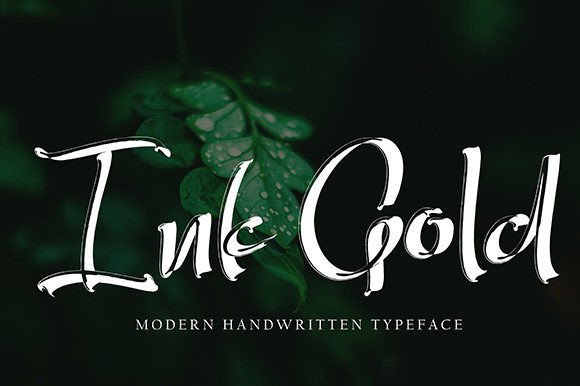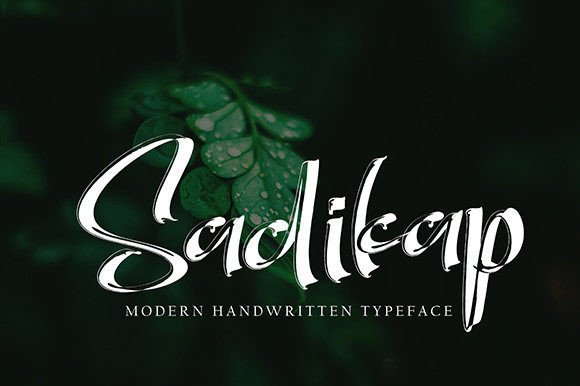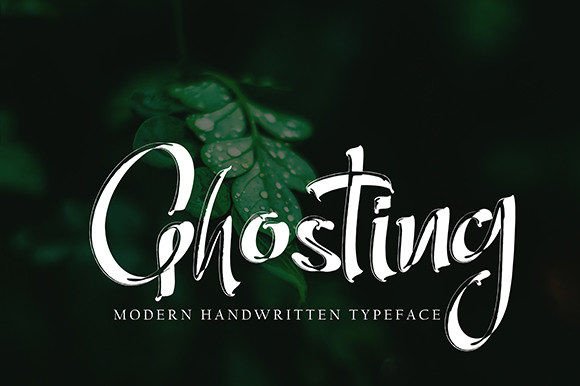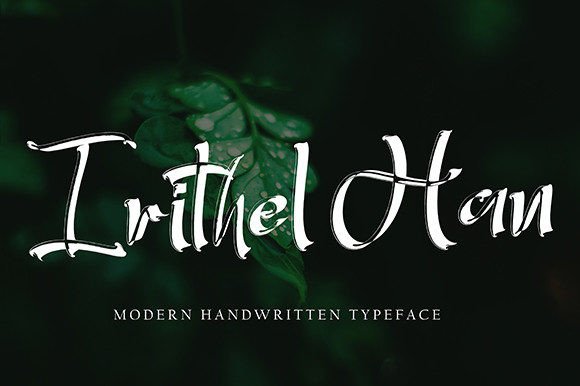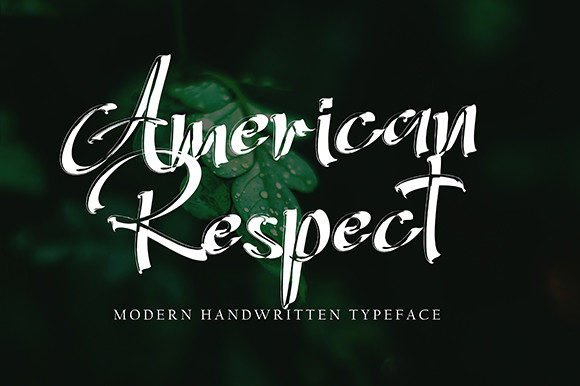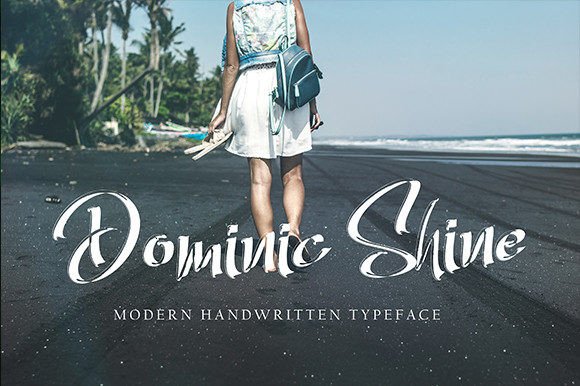
Aberto Gokil Font: The Fresh and Versatile Handwritten Font for Your Creative Projects
Are you a designer or crafter looking for a unique and versatile font to elevate your creative projects? Look no further than Aberto Gokil, a fresh and new handwritten font that’s perfect for a wide range of applications. In this article, we’ll explore the features and benefits of Aberto Gokil, and show you how to make the most of this exciting new font.
What is Aberto Gokil?
Aberto Gokil is a modern handwritten font that’s designed to bring a touch of personality and whimsy to your designs. With its flowing lines and natural feel, this font is perfect for creating eye-catching quotes, logos, blog headers, posters, branding, letters, invitations, stationery, and more.
Key Features of Aberto Gokil
- Handwritten style: Aberto Gokil has a beautiful, handwritten style that’s perfect for creating unique and personalized designs.
- Fresh and modern: This font is brand new, and its fresh and modern style ensures that your designs will stand out from the crowd.
- Versatile: Aberto Gokil is incredibly versatile, and can be used for a wide range of projects, from quotes and logos to blog headers and posters.
- Easy to read: Despite its handwritten style, Aberto Gokil is incredibly easy to read, making it perfect for body text and other applications where legibility is key.
How to Use Aberto Gokil in Your Designs
Aberto Gokil is an incredibly versatile font, and can be used in a wide range of design applications. Here are a few ideas to get you started:
- Quotes and posters: Use Aberto Gokil to create eye-catching quotes and posters that are sure to grab attention.
- Logos and branding: This font is perfect for creating unique and memorable logos and branding materials.
- Blog headers and titles: Add a touch of personality to your blog with Aberto Gokil, perfect for headers, titles, and other design elements.
- Invitations and stationery: Use Aberto Gokil to create beautiful and personalized invitations, stationery, and other paper goods.
Tips and Tricks for Getting the Most out of Aberto Gokil
Here are a few tips and tricks to help you get the most out of Aberto Gokil:
- Experiment with different colors and textures: Aberto Gokil looks great in a wide range of colors and textures, so don’t be afraid to experiment and find the perfect combination for your design.
- Use it with other fonts: Aberto Gokil pairs well with a wide range of other fonts, so try combining it with other fonts to create a unique and interesting design.
- Pay attention to spacing and kerning: As with any font, it’s essential to pay attention to spacing and kerning to ensure that your design looks its best.